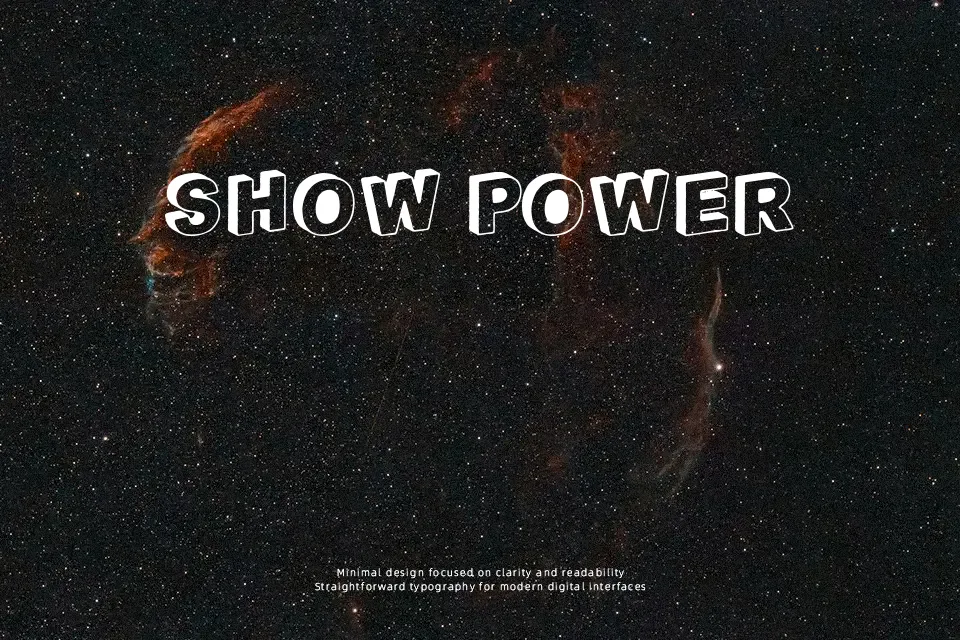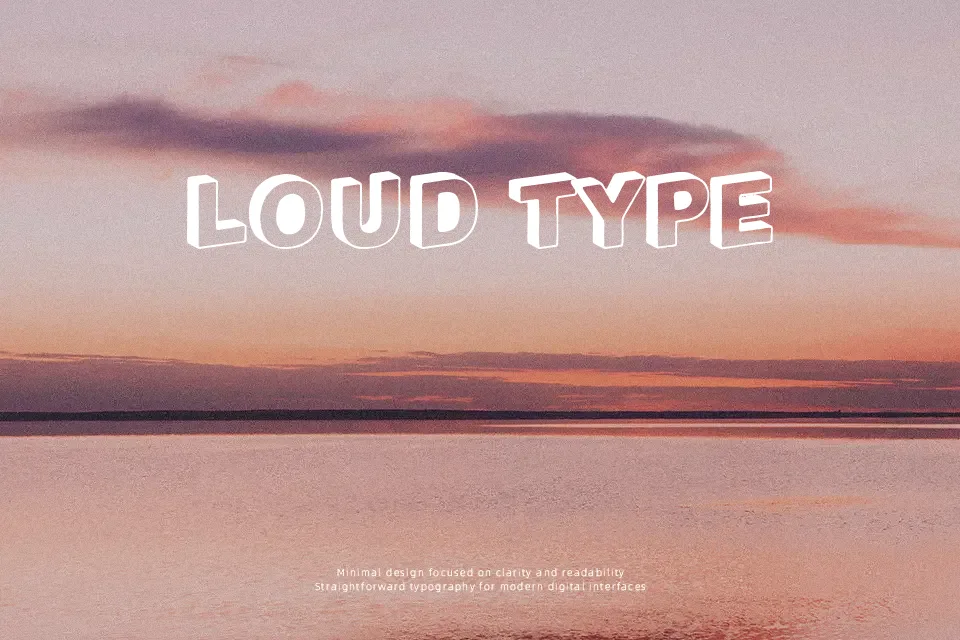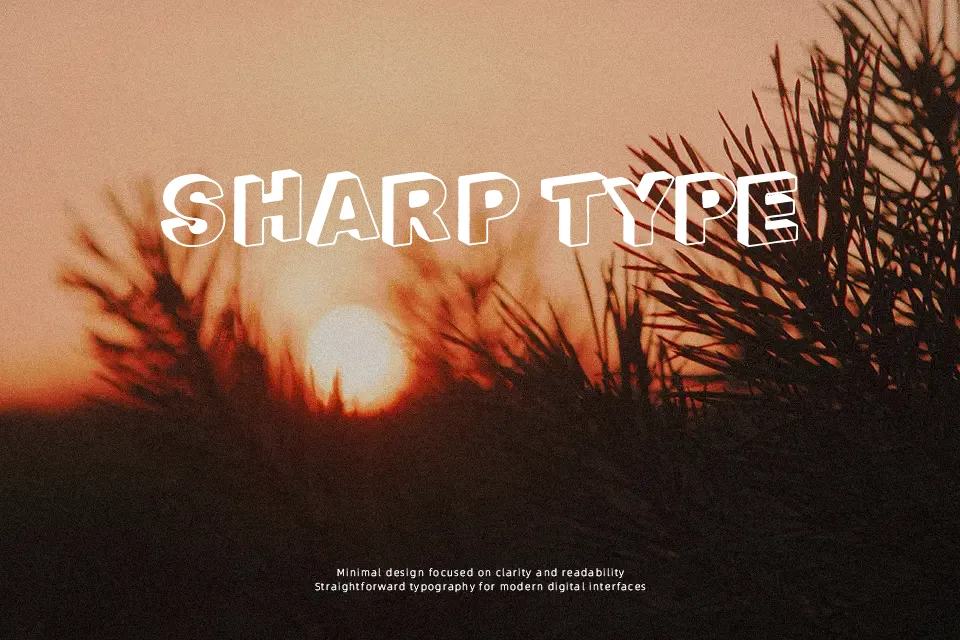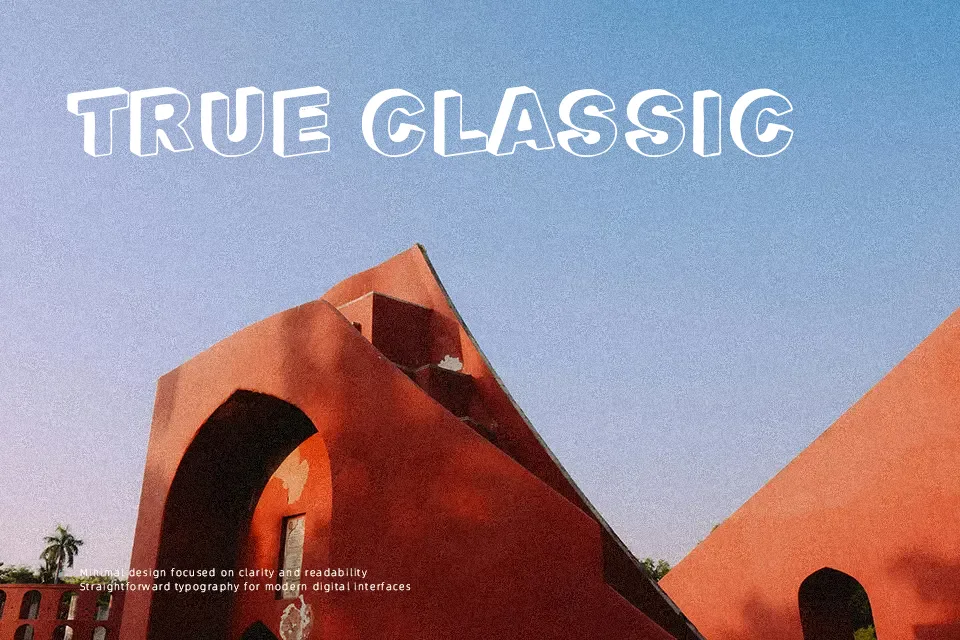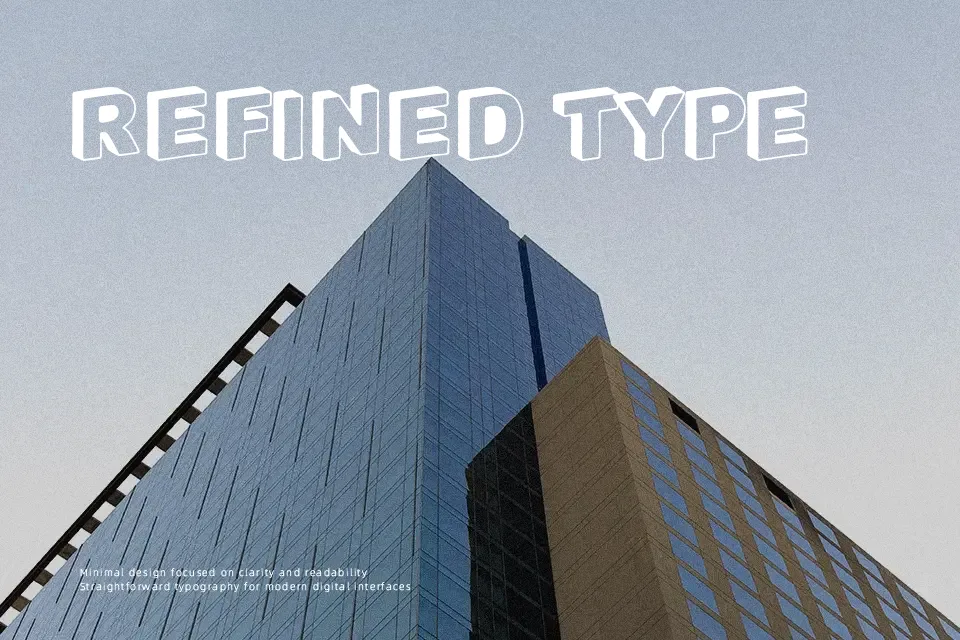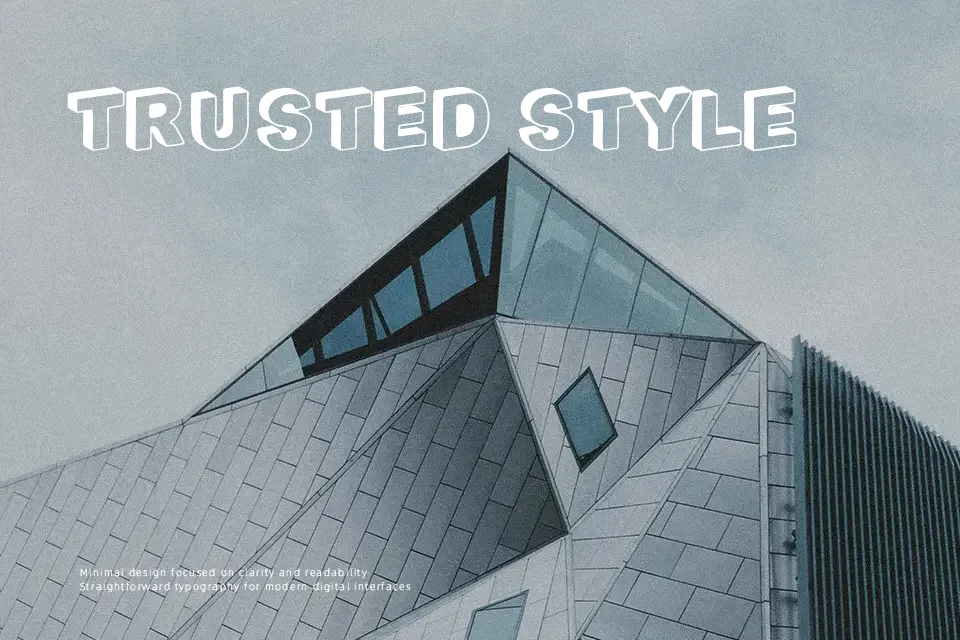
Benidorm Trip Font
That tilted 3D shadow doing all the heavy lifting — that’s Benidorm Trip’s most distinctive trait. The leftward drop shadow gives each uppercase letterform a chunky, dimensioned presence that reads as vintage resort-era signage rather than clean modern design. Stroke weight is heavy, spacing is assertive, and the overall structure leans into cartoon-bold retro territory without apology. It performs well on event flyers, music posters, retro merchandise tags, and social media headers where loud visual contrast is the goal. Where it stumbles: any context requiring lowercase characters, dense body copy, or corporate restraint. The complete character set is limited in the free version, which may be a friction point for multilingual or symbol-heavy projects. Best evaluated at headline scale — at small sizes, the 3D shadow merges and loses clarity fast.
– Retro event posters and music festival headers
– Vintage merchandise and souvenir packaging labels
– Social media title cards with nostalgic or bold themes
– Amusement or holiday-themed logo treatments
– Body text or any extended reading context
– Multilingual or symbol-heavy typesetting
– Corporate, legal, or professional branding
– Small-size applications where 3D shadow detail collapses
Perfect for branding, headline, and holiday, with a bold and cartoon style.